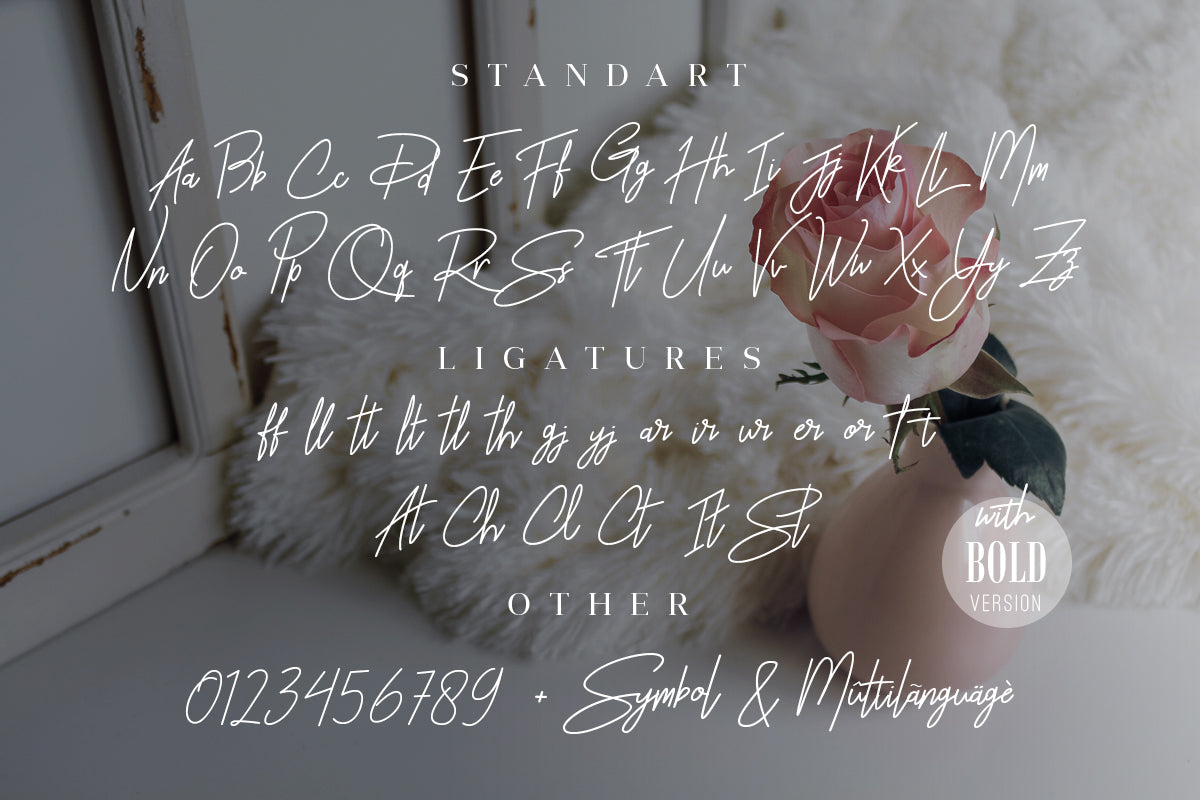
Free Rhesmanisa Handwriting Script Font
Introducing you to the absolutely beautiful free rhesmanisa handwriting script font. This is a downloadable typeface file brought to you by Pixelify. Easily amaze your audience with this cool font and make your graphic designs pop up from the crowd.